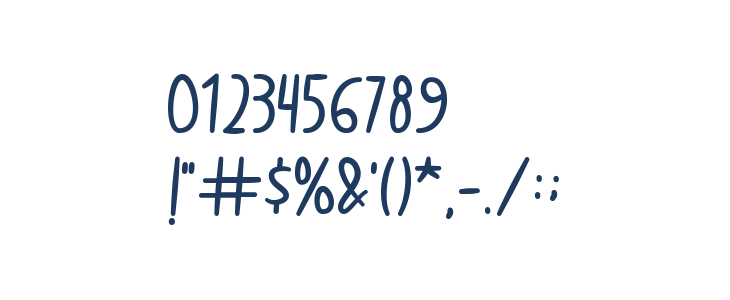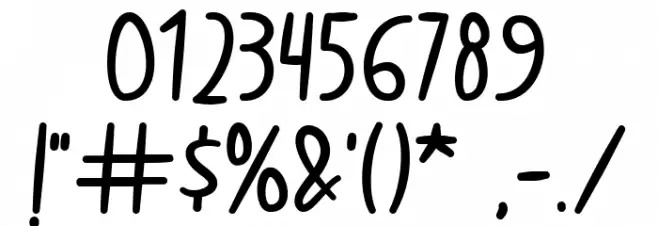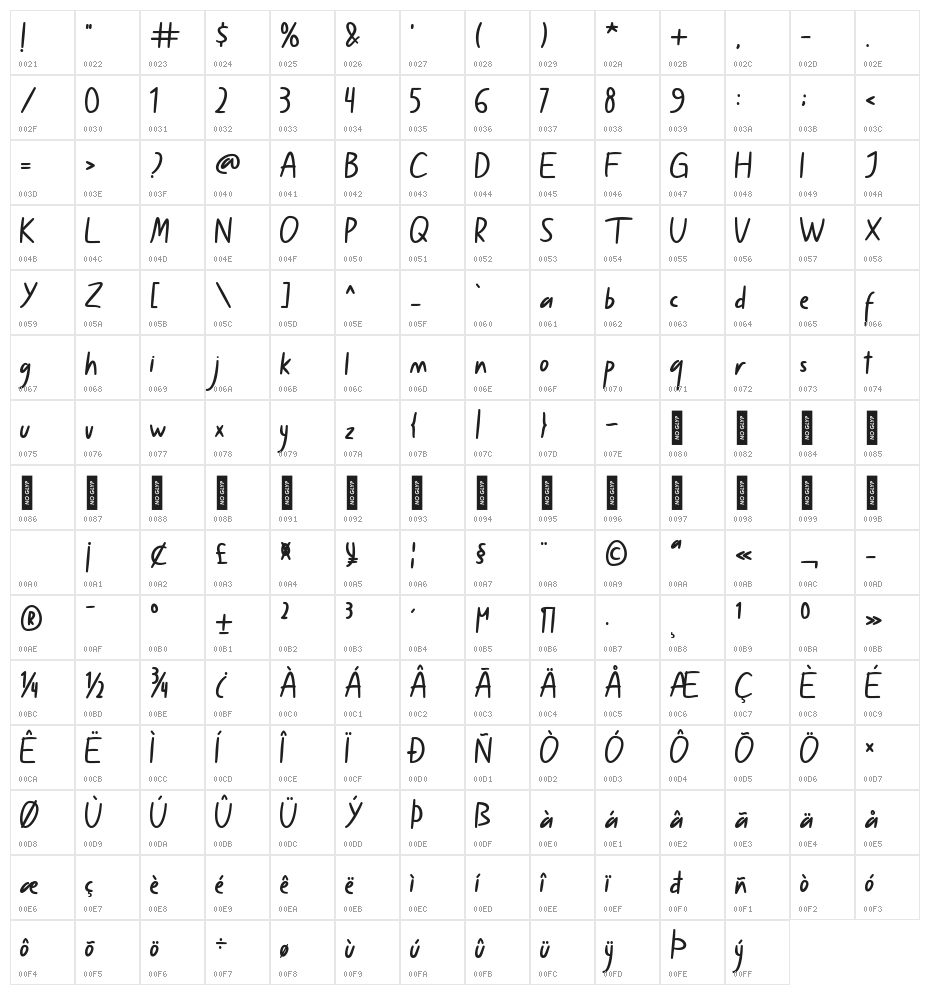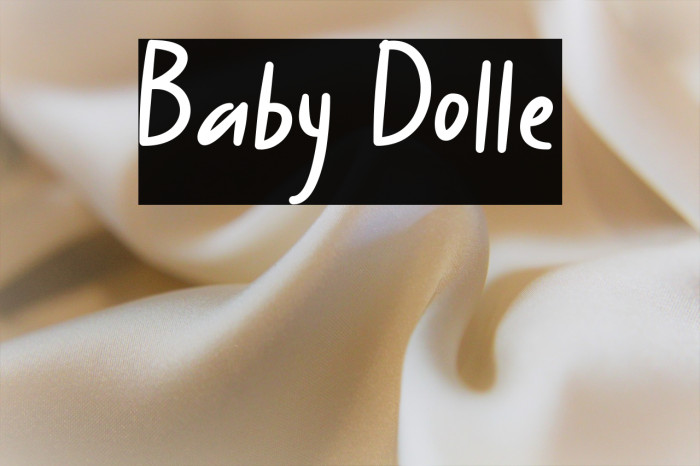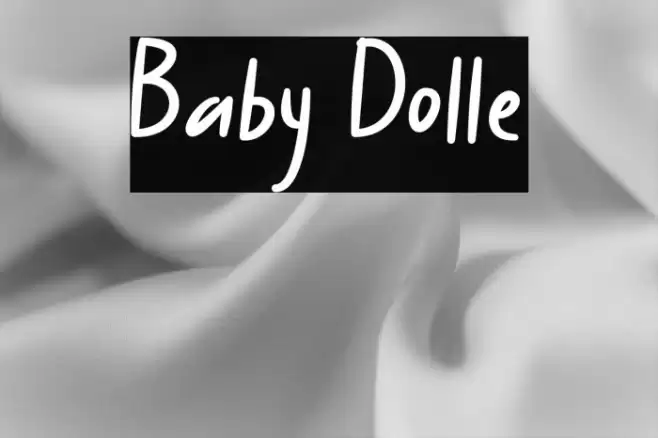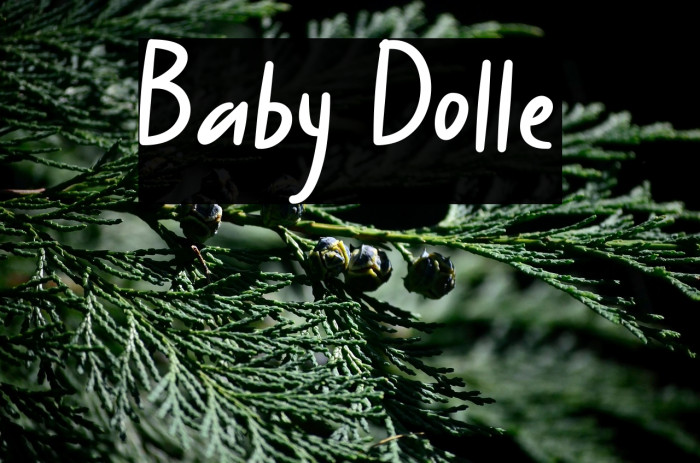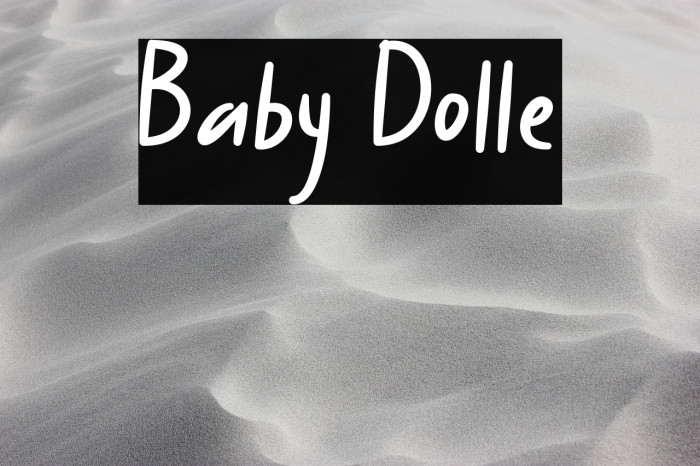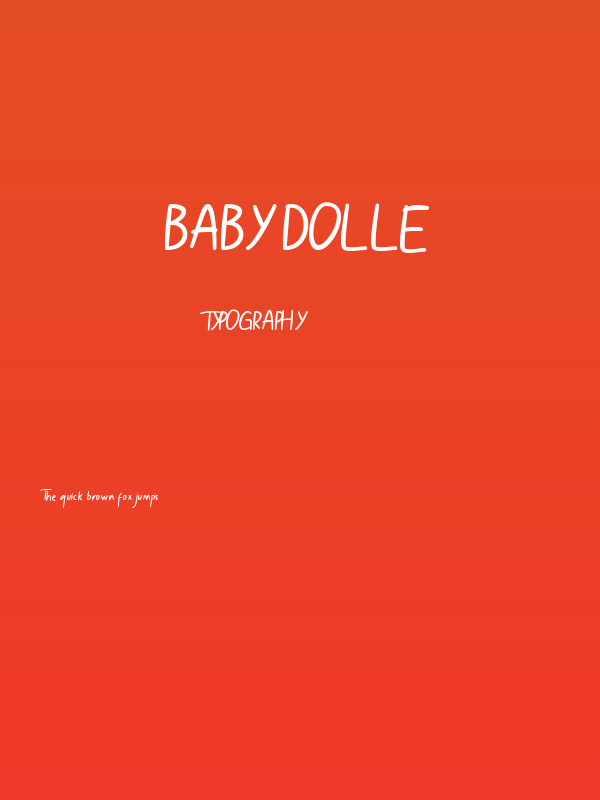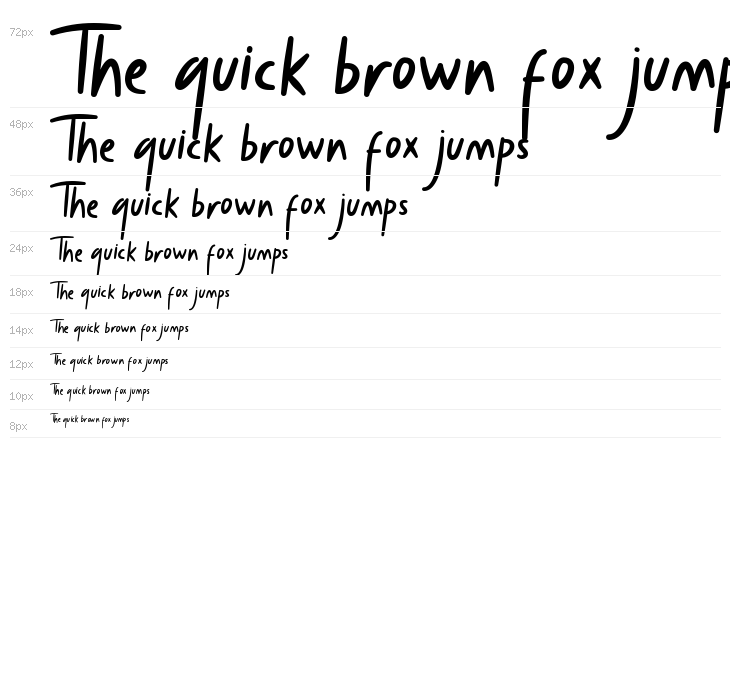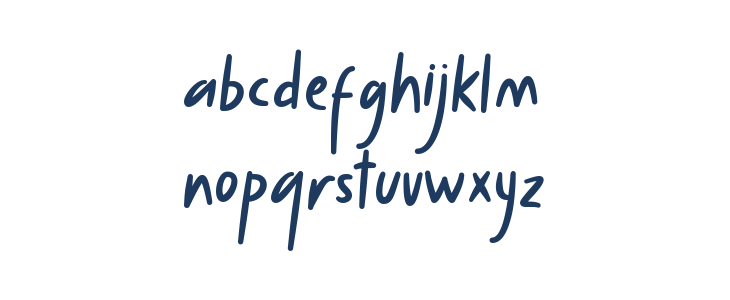
Baby Dolle Font
Baby Dolle Description
This font features a playful and informal handwritten style, characterized by its smooth, rounded edges and slightly irregular letterforms. The uppercase letters are tall and narrow, giving a sense of height and energy, while the lowercase letters maintain a consistent flow with a casual, friendly appearance. The numerals and special characters follow the same playful aesthetic, making the font versatile for various creative applications. Its overall appearance is approachable and lively, suitable for projects that require a personal touch.
| Proposed Projects | Ideal for children's books, greeting cards, playful branding, and social media graphics. |